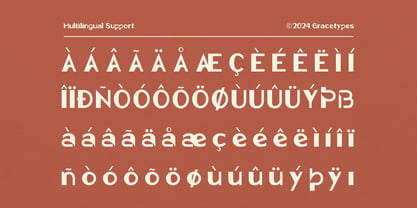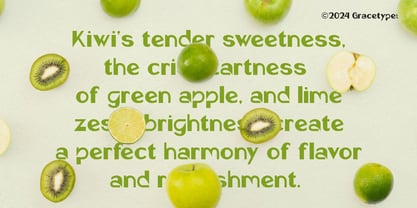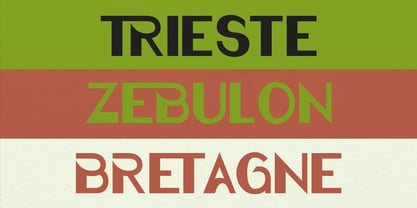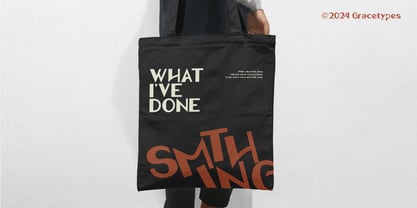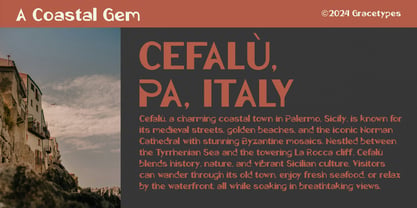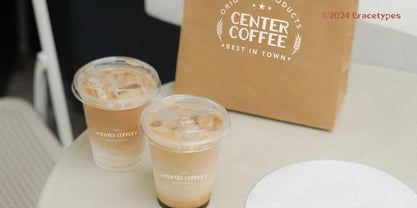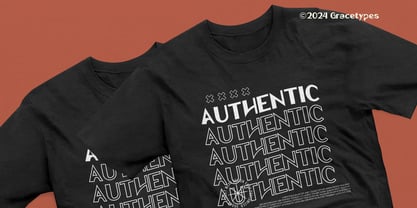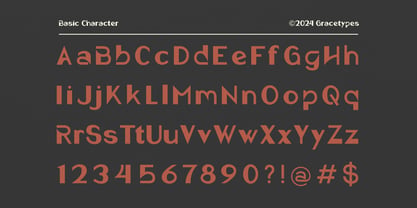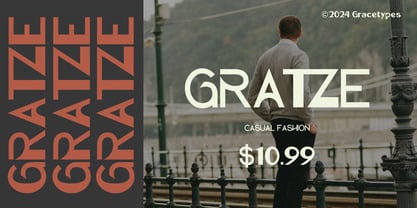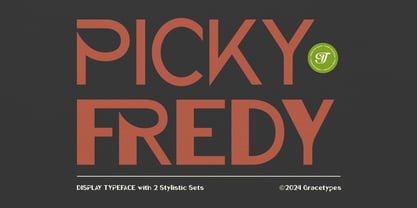
Picky Fredy
by Tini Fitriani
The Picky Fredy Font Family was designed by and published by Tini Fitriani. Picky Fredy contains 2 styles and family package options. More about this family
Picky Fredy | Display Typeface, from Denustudios, suitable for any projects such as: logos, branding projects, homeware designs, product packaging, mugs, quotes, posters, shopping bags, t-shirts, book covers, name card, invitation cards, greeting cards, label, photography, watermark, special events, and all your other lovely projects that need Display Typeface a taste.